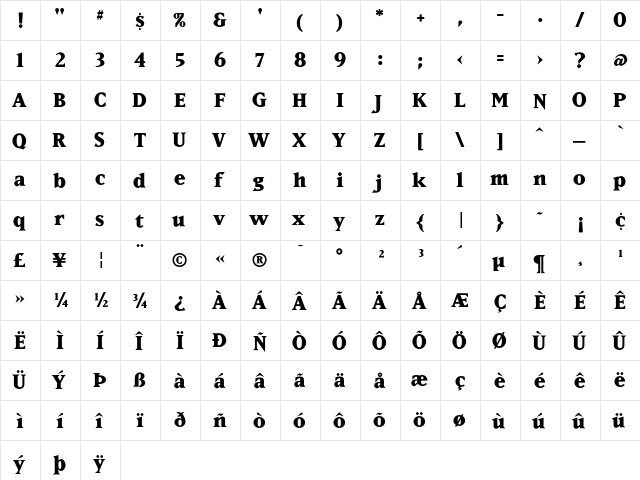
MatrixExtraBoldLining Regular
Design Context for MatrixExtraBoldLining Typeface
MatrixExtraBoldLining is a composed and adaptable typeface that performs quietly and consistently across a wide range of design contexts. The heavy weight commands attention and anchors typographic hierarchies.